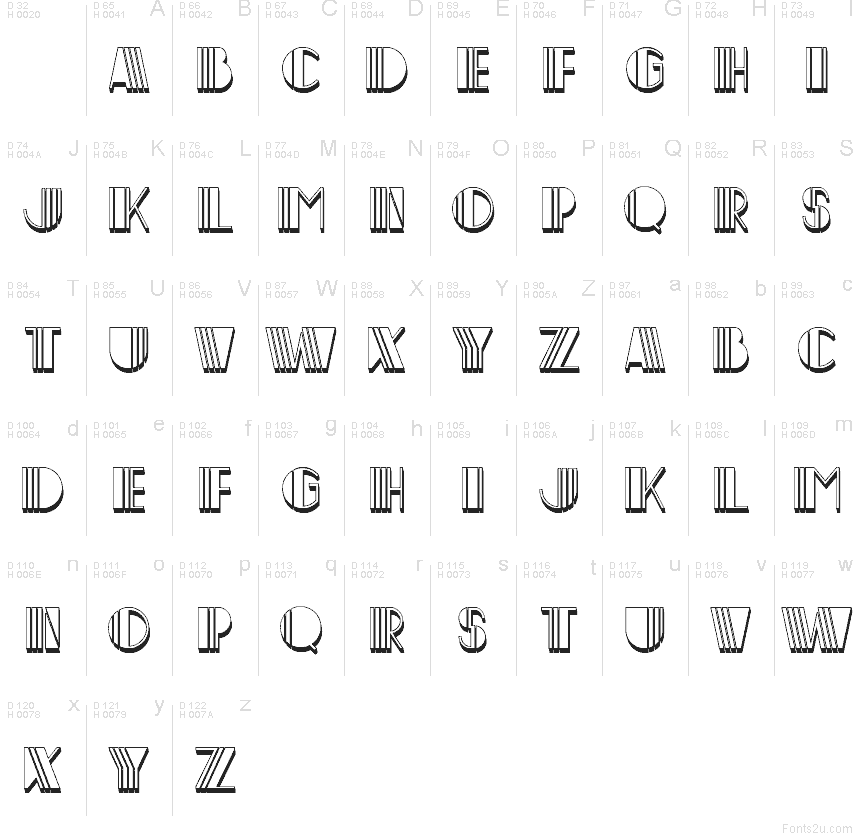
Multi 3D Regular
Multi 3D font by Vladimir Nikolic is a free retro 3D display typeface that turns every word into an optical illusion. Part of the Multi family, its tall, condensed letters are carved from parallel black-and-white lines that stack into a deep, architectural structure. The overlapping strokes create a vibrating, moiré-like depth, so even a short word looks like it’s stepping off the page under a spotlight.
Using Multi 3D, you can push bold headlines for posters, album covers, logos, event graphics, T‑shirt designs, and motion titles where you want instant, high-impact drama. This free font shines when set large, giving the layered outlines room to breathe and shimmer. For supporting text, pair it with a clean geometric sans to keep layouts readable while letting Multi 3D handle the show-stopping moments.